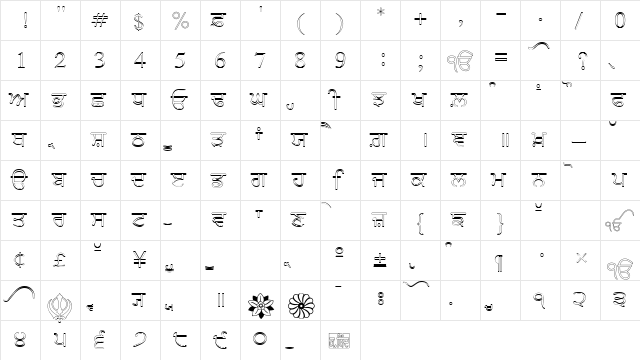
AnmolOutlined Regular
Design Context for AnmolOutlined Typeface
AnmolOutlined is built around its visual character rather than neutral utility — its distinctive forms are designed to make an impression at display sizes.
Font Pairing: Pair with a clean neutral sans-serif for body copy to let AnmolOutlined's character lead without overwhelming the composition.
Pro Tip: Use AnmolOutlined exclusively at display sizes — it was designed to be seen, not read at length. Let a neutral companion handle body copy.